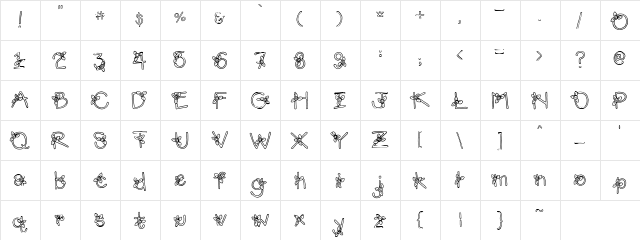
PC Flower Girl Regular
Design Context for PC Flower Girl Typeface
PC Flower Girl is a composed and adaptable typeface that performs quietly and consistently across a wide range of design contexts.